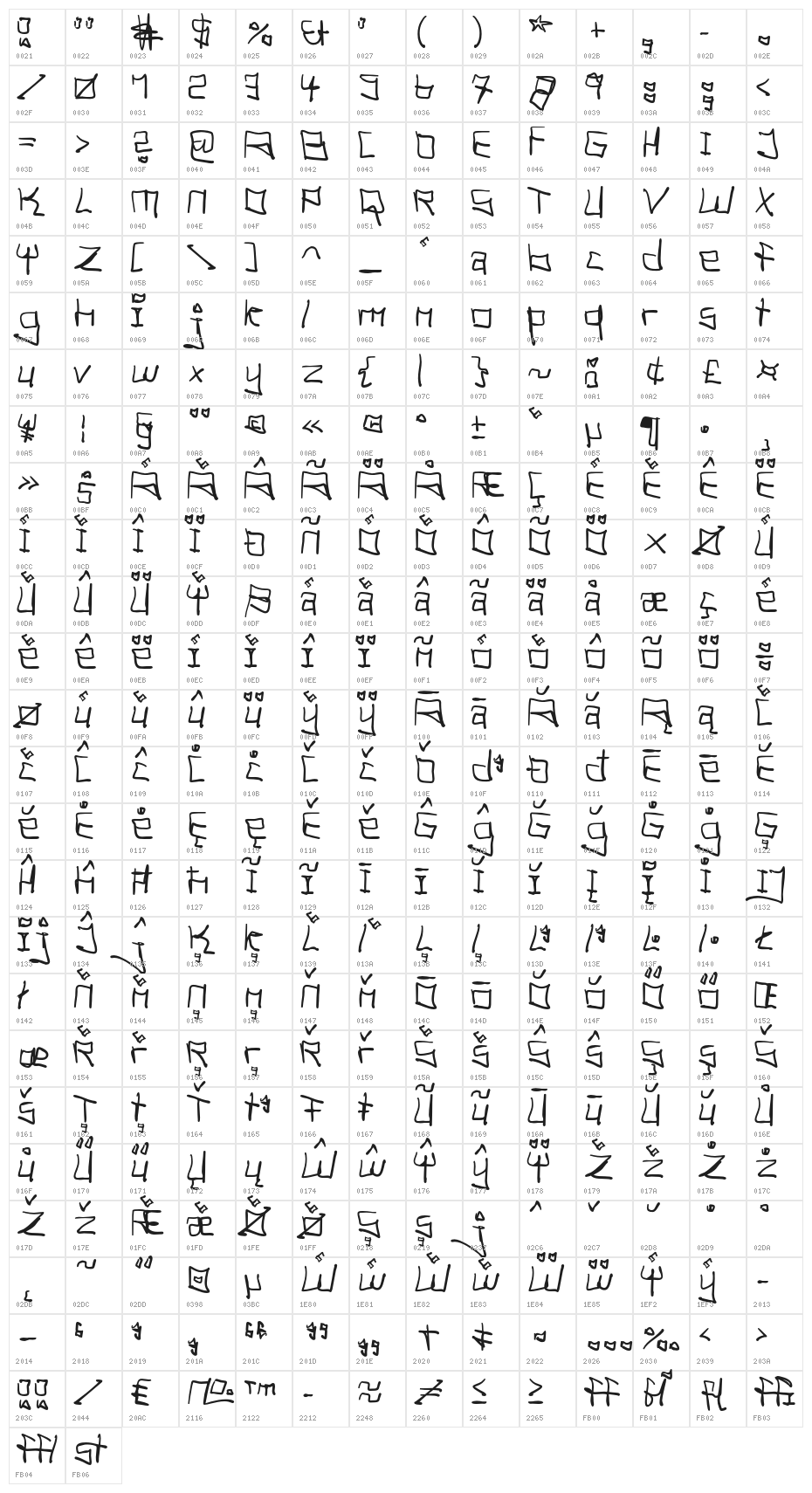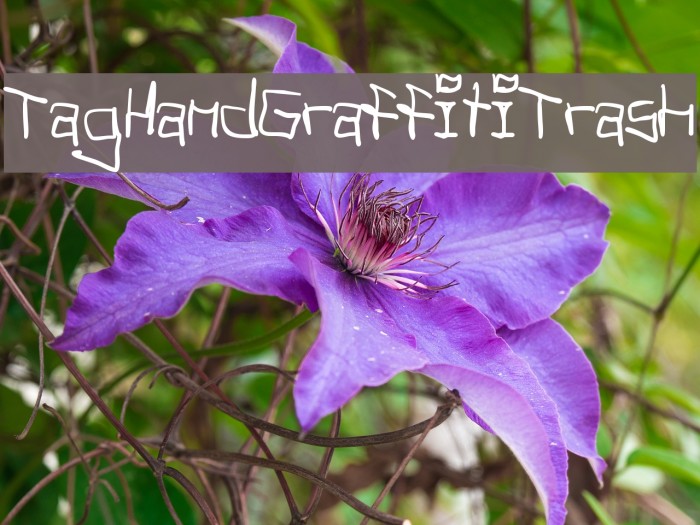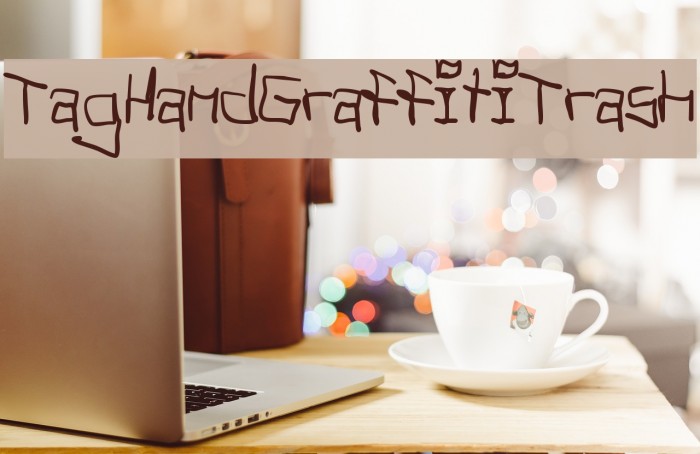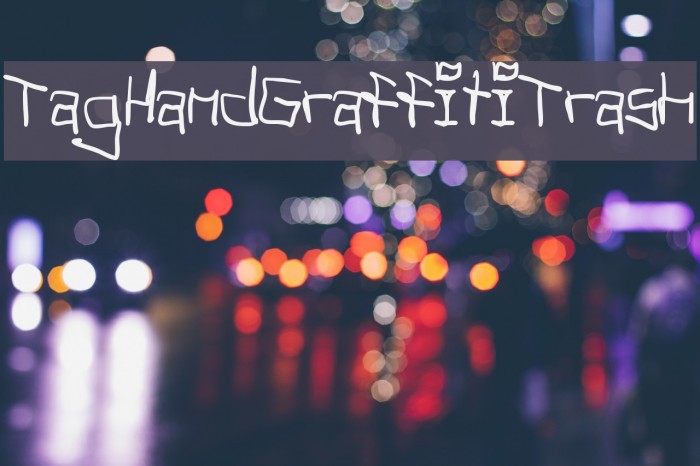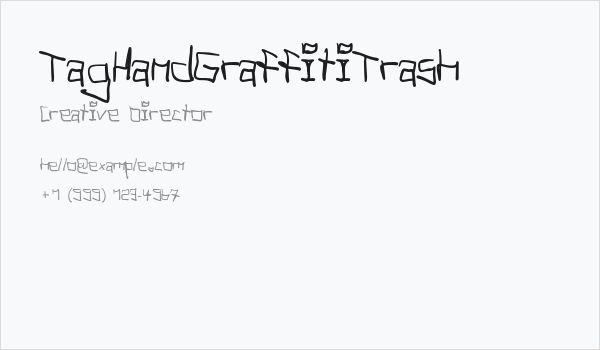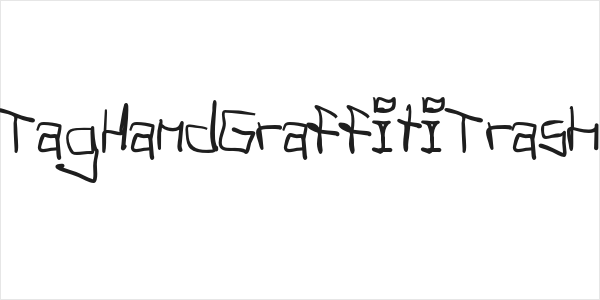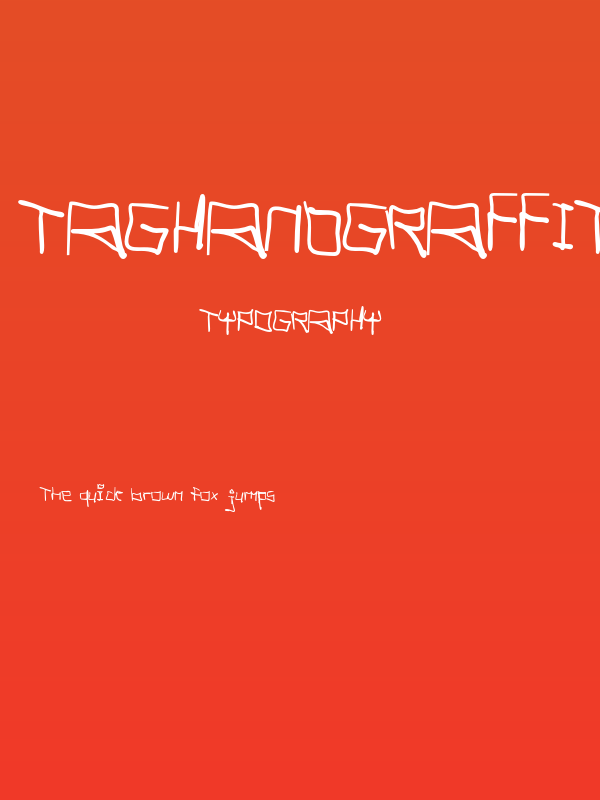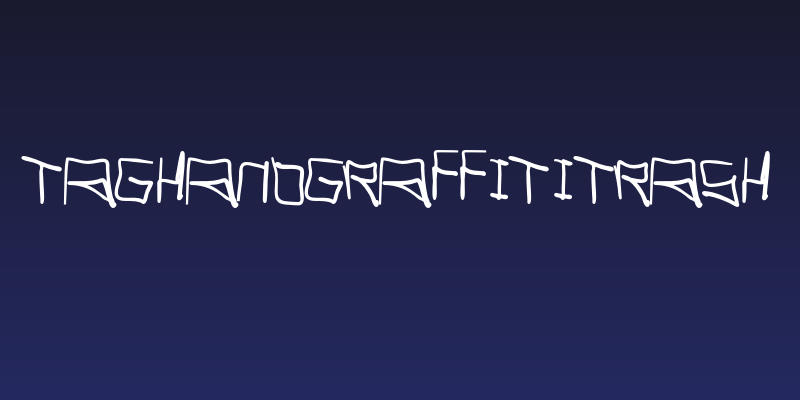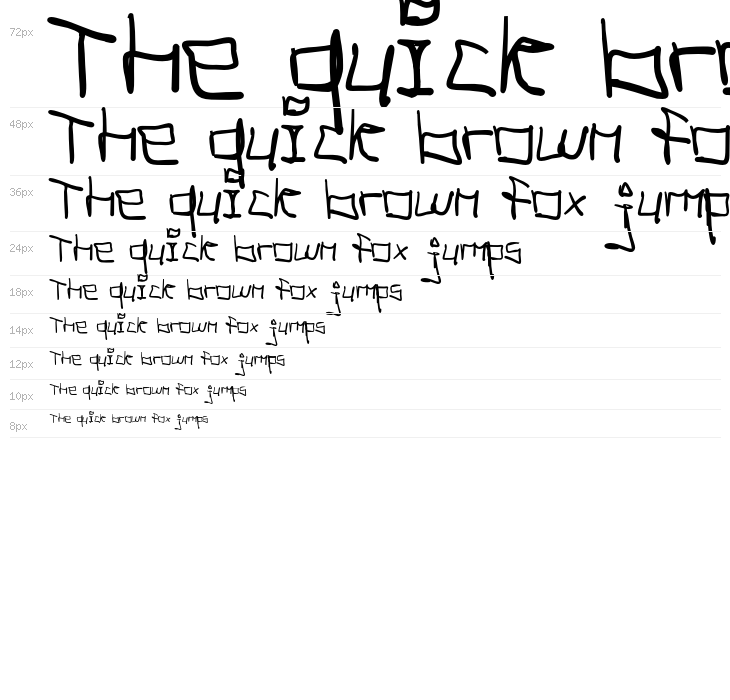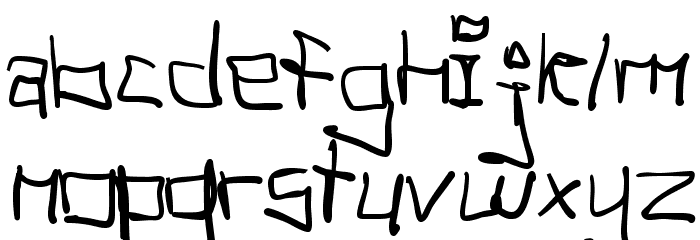
TagHandGraffitiTrash Font
This font exudes a raw, urban aesthetic reminiscent of street art and graffiti. The characters are bold and irregular, with a hand-drawn quality that gives them an edgy, rebellious feel. The uppercase and lowercase letters maintain a consistent style, characterized by sharp angles and uneven strokes that mimic the spontaneous nature of graffiti tags. Numbers and special characters follow the same rugged design, enhancing the font's cohesive look. This style is perfect for projects that aim to capture the essence of urban culture or convey a sense of individuality and nonconformity.
Overall StyleUrban, Edgy, Graffiti
Use CaseLogos, Posters, Album Covers
Proposed ProjectsIdeal for street art projects, urban-themed designs, music album covers, and edgy branding.